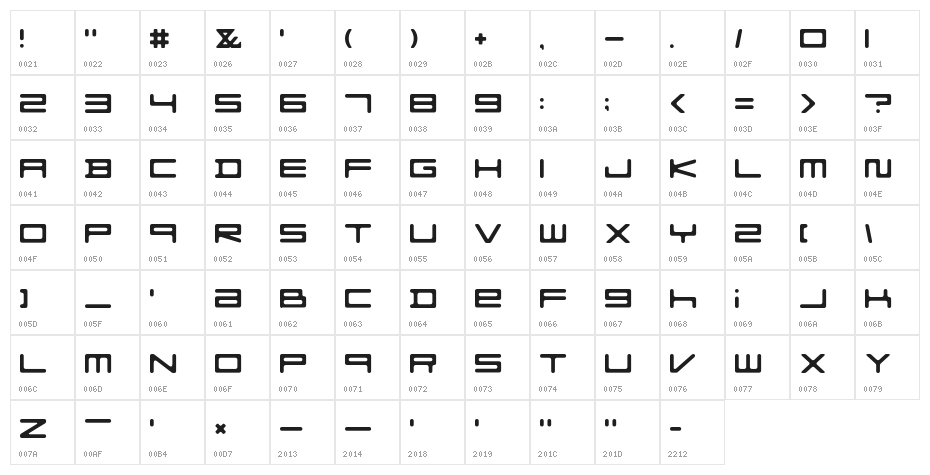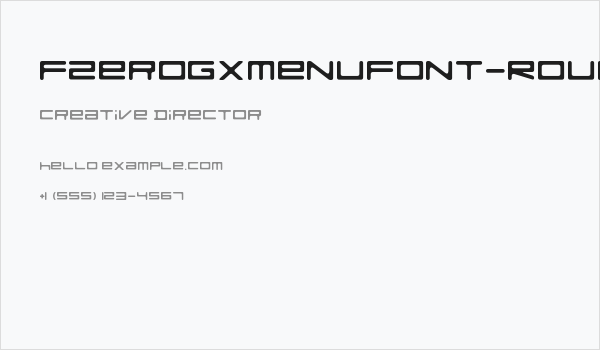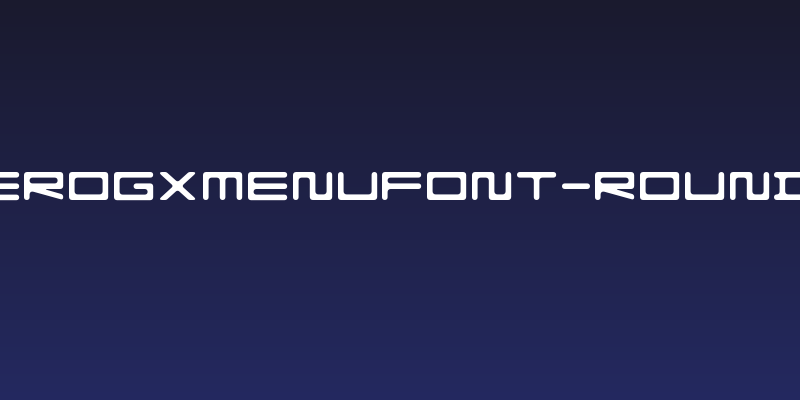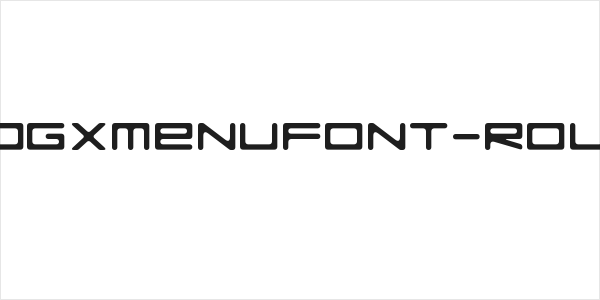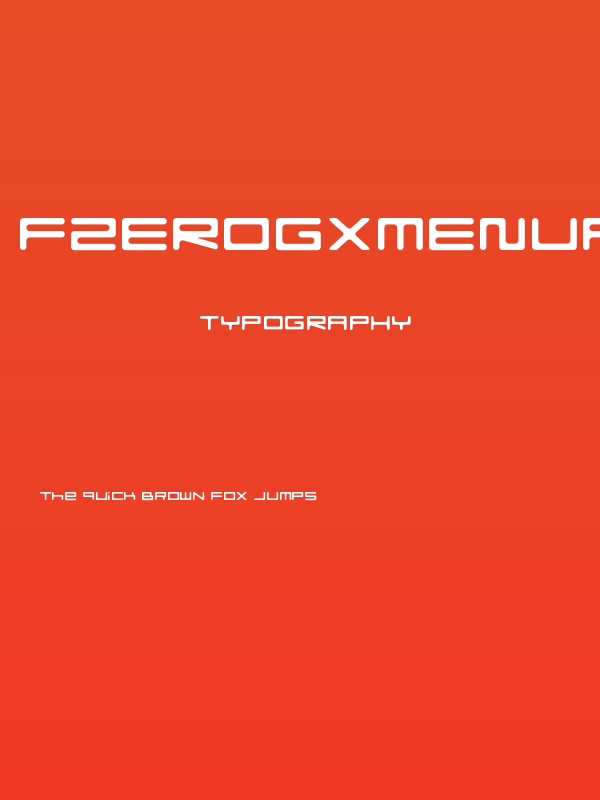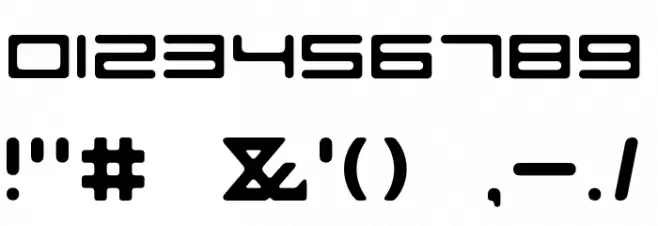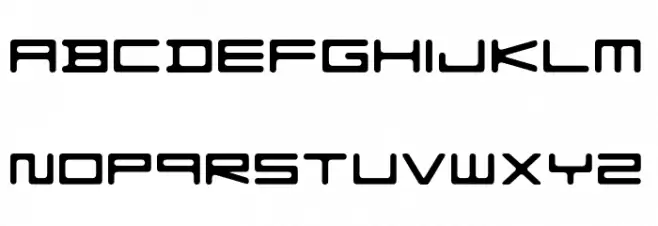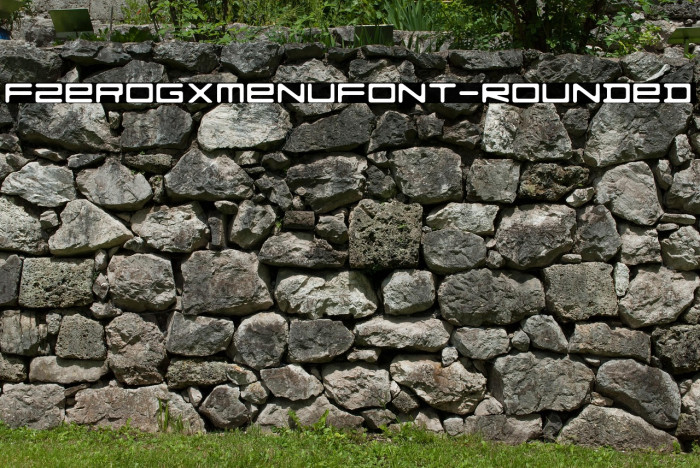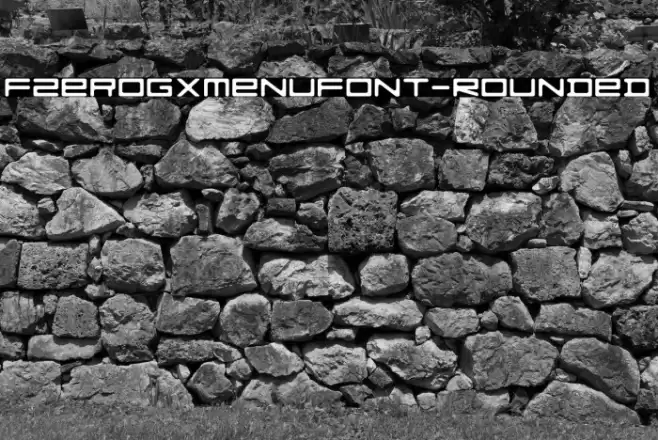
FZeroGXMenuFont-Rounded Font
FZeroGXMenuFont-Rounded Description
This font features a futuristic and rounded design, characterized by its geometric shapes and smooth curves. The uppercase and lowercase letters maintain a consistent style, with a uniform stroke width that gives it a sleek and modern appearance. The numerals and special characters are designed to complement the letterforms, maintaining the same rounded and streamlined aesthetic. This font's clean and minimalistic design makes it versatile for various applications, offering a contemporary look that is both functional and visually appealing.
FZEROGXMENUFONT-ROUNDED UPPERCASE
FZEROGXMENUFONT-ROUNDED LOWERCASE
FZEROGXMENUFONT-ROUNDED OTHER CHARS
| Font Family | F-Zero GX Menu Font Rounded |
| Use Case | Headlines, Logos, Digital interfaces |
| Proposed Projects | Ideal for video game interfaces, tech branding, sci-fi posters, and modern digital displays. |